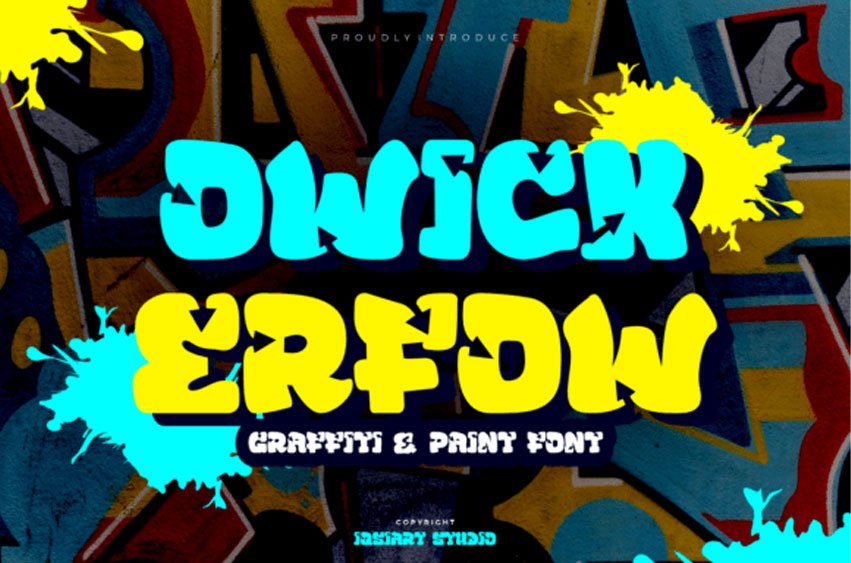
Owick Erfow Font explodes with urban energy and raw creativity! This graffiti and paint font combines thick, expressive strokes with a vibrant street-art vibe, making it perfect for posters, hip-hop album covers, streetwear branding, and youth-focused projects.
Channel the pulse of the city into your designs with this edgy, eye-catching font.